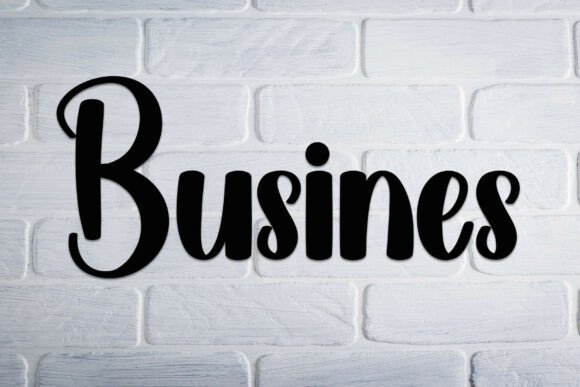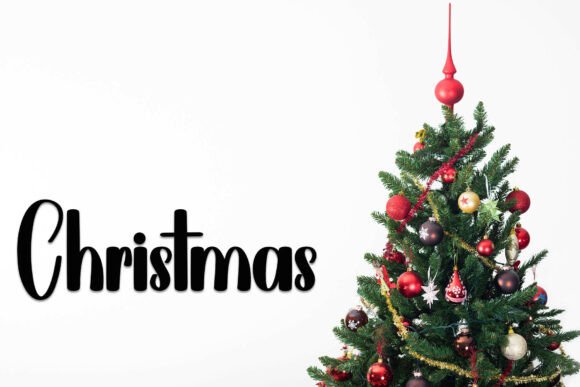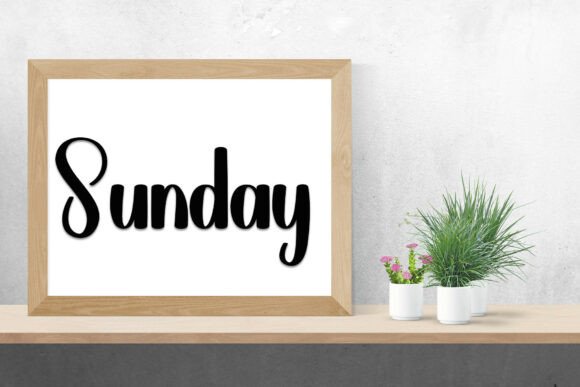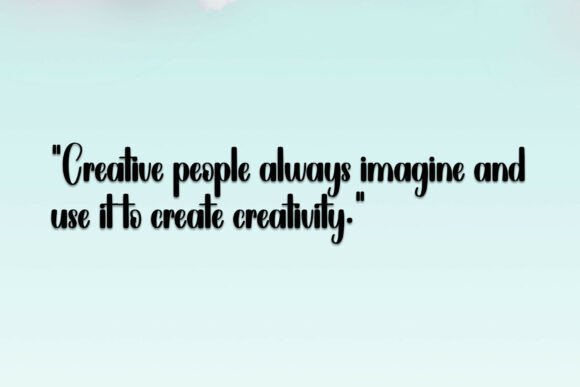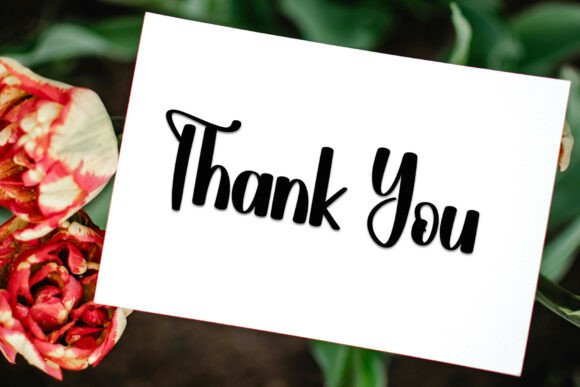
The Perfect Touch for Your Design Masterpiece
You’ve spent hours perfecting your design, and the final piece is just missing that special something. You’ve got the colors, the layout, and the overall vibe – but something’s still not quite right. That’s when you remember the magic of a beautiful font. And for those looking to add a touch of elegance and sophistication to their work, the Cake Topper Font is the perfect solution.
With its timeless classic calligraphy style, Cake Topper Font is a versatile and trendy handwritten font that’s sure to elevate any design project. Whether you’re a seasoned designer or just starting out, this font is an invaluable addition to your toolkit. Its impeccable form and contemporary atmosphere make it the perfect choice for anything from wedding invitations to branding materials.
Cake Topper Font Key Features
- Unique Characteristics: The Cake Topper Font is a playful, handwritten font designed specifically for cake toppers and other baked goods. It features whimsical flourishes and intricate details, making it perfect for adding a touch of personality to your baked creations.
Cake Topper Font Review
Cake Topper Font is a delightful, whimsical font perfect for adding a touch of magic to your baked goods. ✨ The font’s playful, cursive style is reminiscent of classic illustrations, making it ideal for adding a vintage feel to your desserts.
The font includes a variety of uppercase and lowercase letters, as well as numbers, making it versatile for use in various cake topper designs. ✨ The included bonus elements, such as borders and shapes, add an extra layer of customization options.
- Cute, whimsical design perfect for baked goods
- Playful, cursive style adds a touch of magic
- Included bonus elements for added customization
- Versatile for use in various cake topper designs
- ⚠️ Limited font sizes available, may require scaling
- ⚠️ Some letters may not be easily readable at smaller sizes
- ⚠️ Not suitable for use in formal or professional designs
Overall, Cake Topper Font is a charming addition to any baker’s or dessert designer’s toolkit. While it may have some limitations, its unique design and versatility make it a great choice for adding a touch of whimsy to your baked goods.
Tips for Getting the Most Out of the Cake Topper Font
To get the most out of the Cake Topper Font, try using it in conjunction with bold or italic text to add emphasis and visual interest.
Experiment with different font sizes and colors to create a cohesive look that matches your design.
The Cake Topper Font is commonly used for:
- Cake toppers and dessert decorations
- Wedding invitations and party decorations
- Special occasion graphics and designs